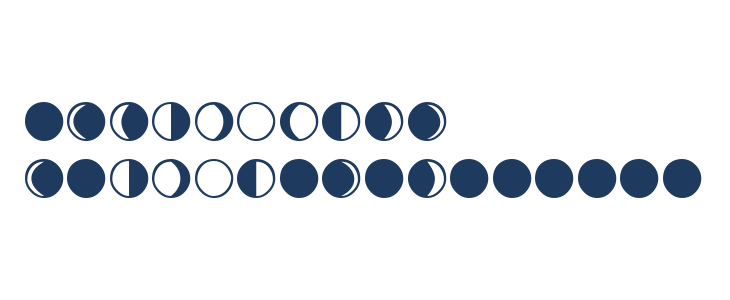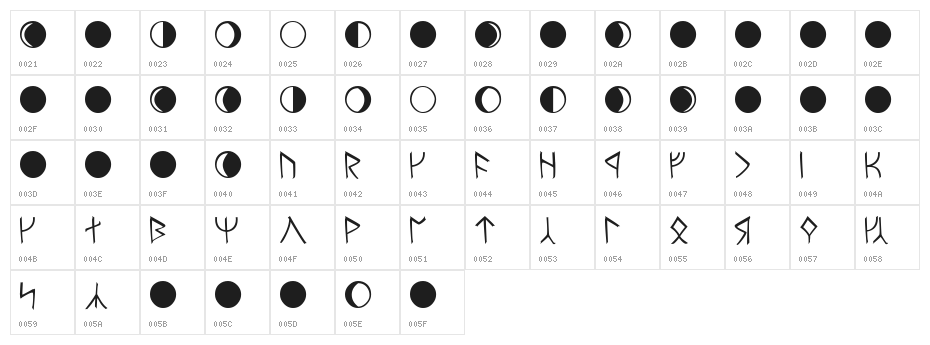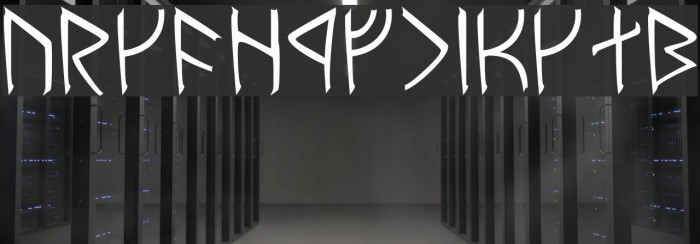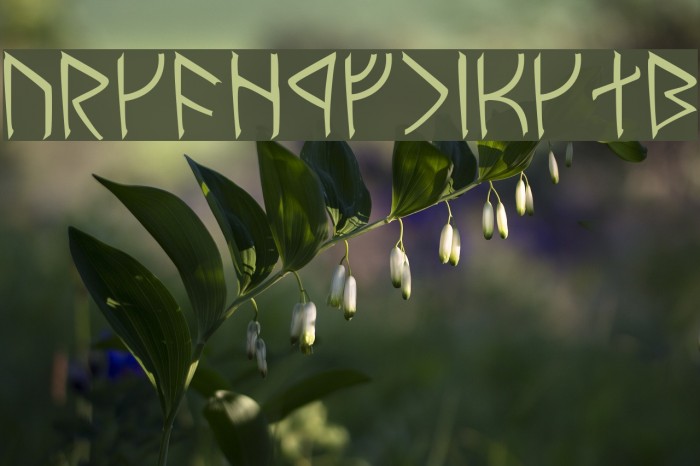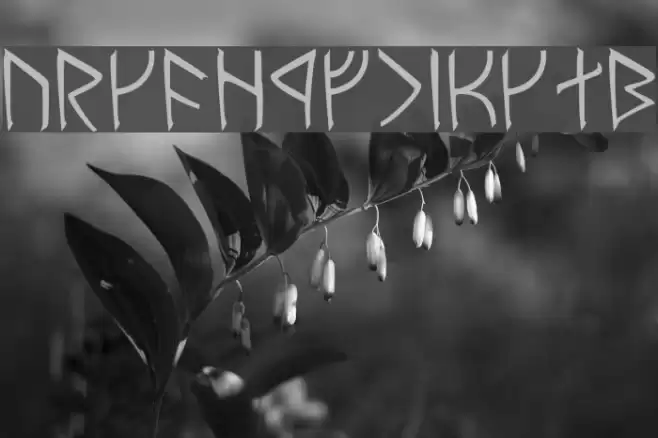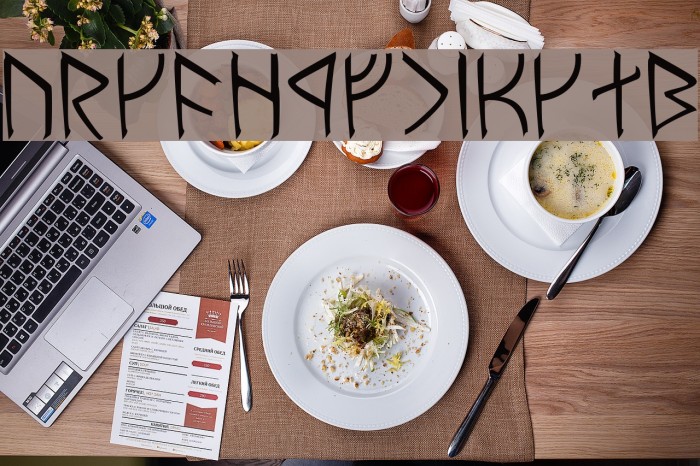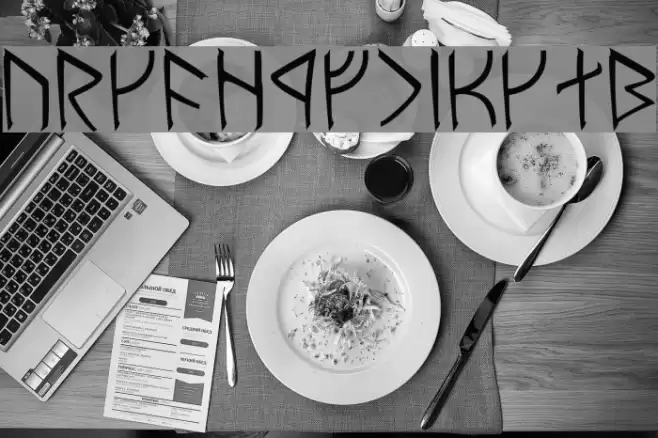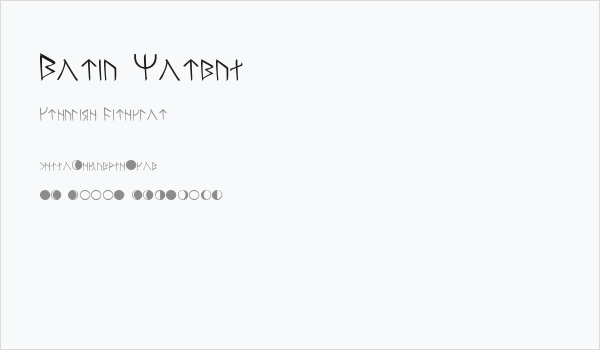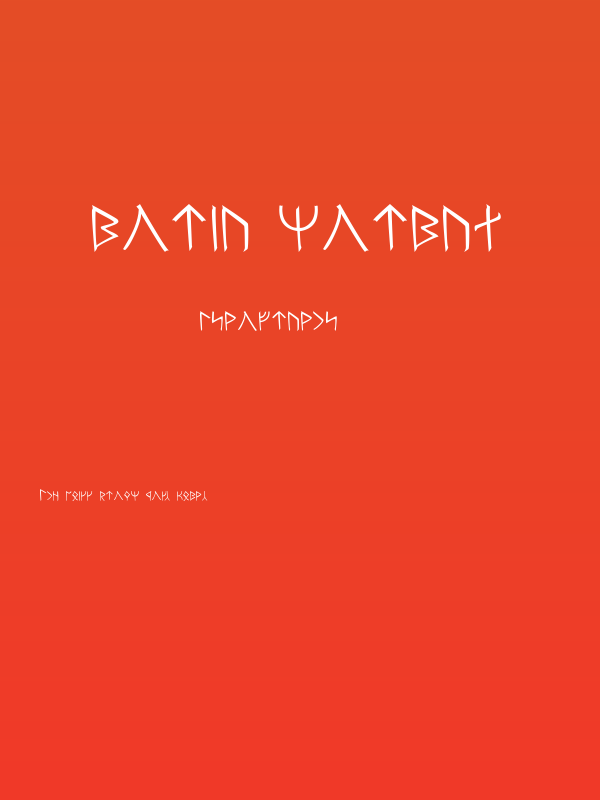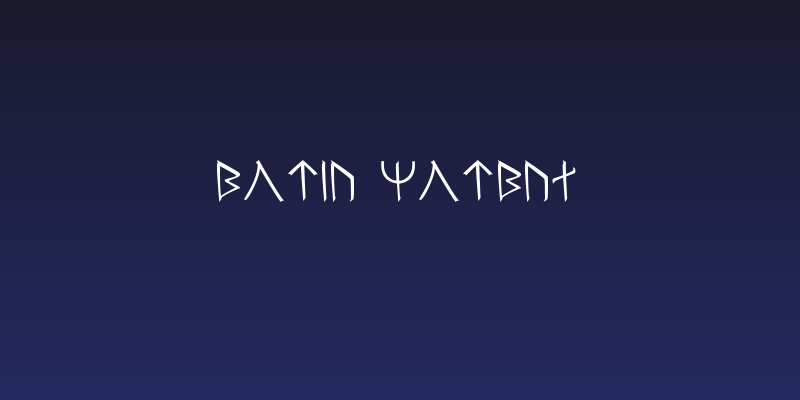
Moria Normal Font
Moria Normal Description
This font features a unique, angular design reminiscent of ancient runic scripts. The characters are composed of sharp, geometric lines that create a sense of mystery and antiquity. The overall appearance is bold and striking, with each letter standing out distinctly. The font's style evokes a sense of history and fantasy, making it ideal for projects that require an ancient or mystical aesthetic. The characters are evenly spaced, ensuring readability while maintaining their distinctive style. This font does not include traditional lowercase letters or numbers, focusing instead on its thematic design.
Overall StyleMystical, Ancient, Fantasy
Use CaseLogos, Titles, Decorative Text
Proposed ProjectsIdeal for fantasy book covers, game titles, movie posters, or any project requiring a mystical or ancient theme.